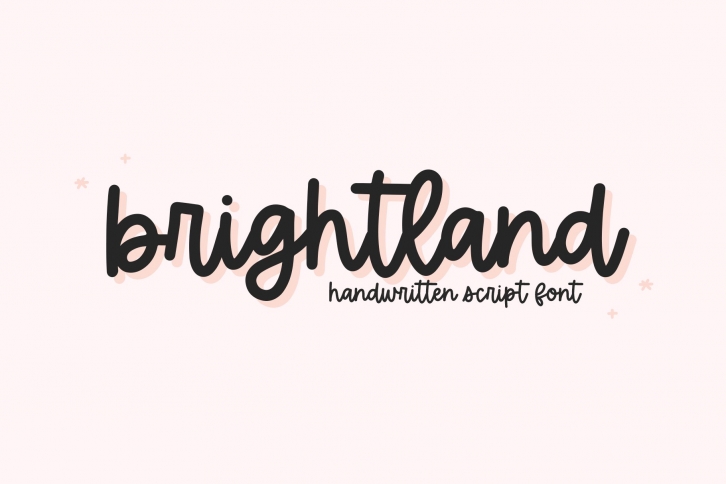
Brightland is a trendy and unique font with an authentic style. It was designed by KA Designs and it's a great choice for creative people who need such a font. It was released on March 30, 2022 and the file size is 11.18 MB. Brightland will add an organic vibe to any design idea!